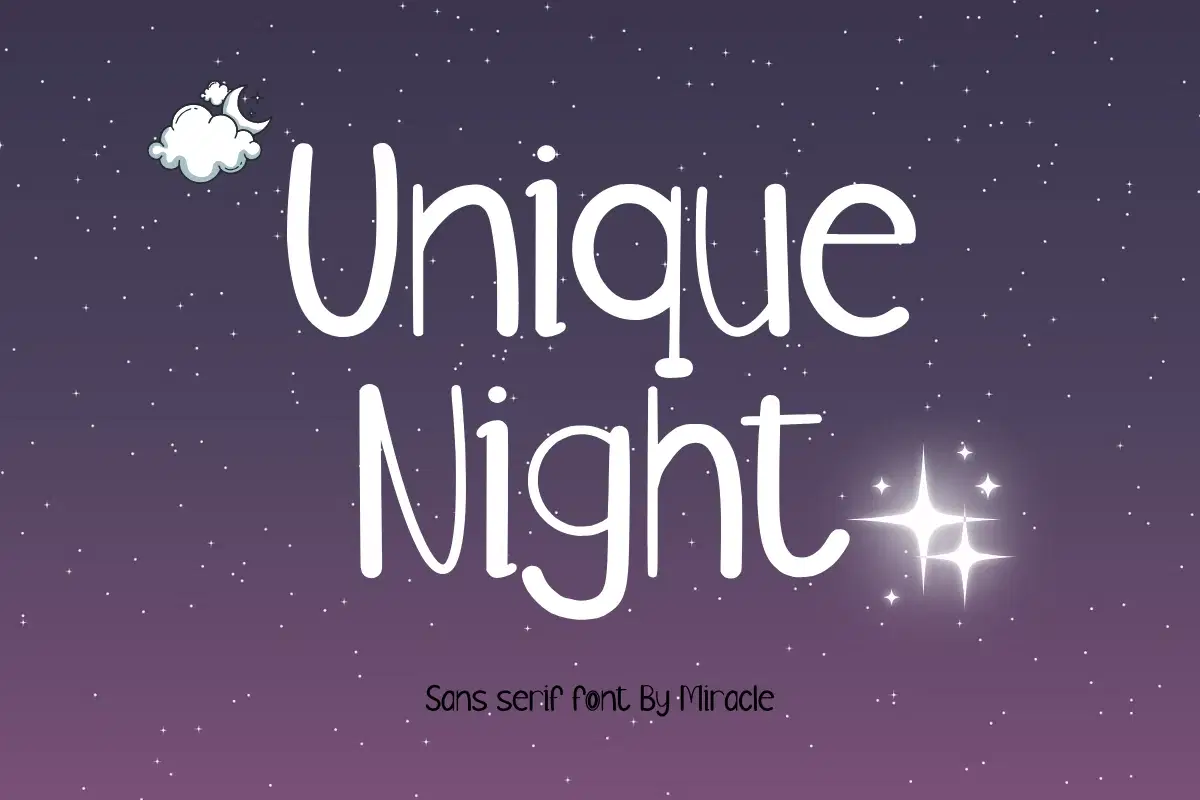
Illuminate your designs with Unique Night, an enchanting sans serif font by Miracle. Inspired by the quiet beauty of a starry sky, this font features tall, slender letterforms and a whimsical hand-drawn touch that feels both celestial and modern. It is the perfect choice for projects that need to convey a sense of wonder, mystery, and elegance.
Unique Night combines high legibility with an artistic soul, making it incredibly versatile for both digital and print media. Whether you are designing for a lifestyle brand or a dreamy editorial piece, this font adds a "sparkle" of personality to every word.